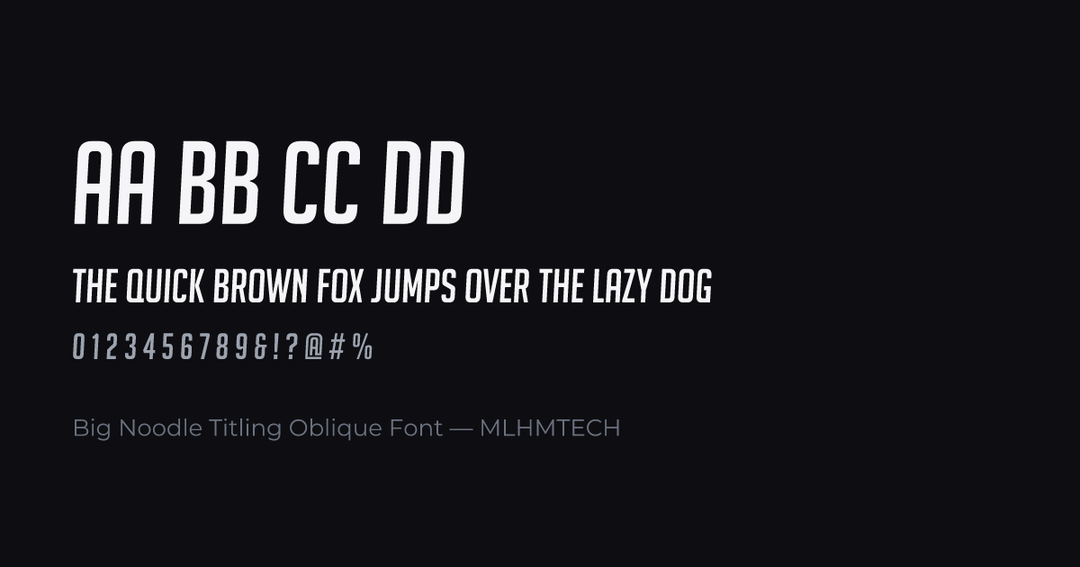
Big Noodle Titling Oblique Font
Big Noodle Titling Oblique is a bold, condensed sans-serif font with an oblique slant, ideal for impactful titles and display use.
Big Noodle Titling Oblique is a popular display font known for its tall, condensed letterforms and slight italic slant. It exudes a strong, modern, and slightly industrial feel, making it perfect for movie posters, video titles, logos, and any design that needs to grab attention.
Whether you're creating a cinematic title sequence, a bold poster, or a striking logo, Big Noodle Titling Oblique adds a professional and dynamic edge to your projects.